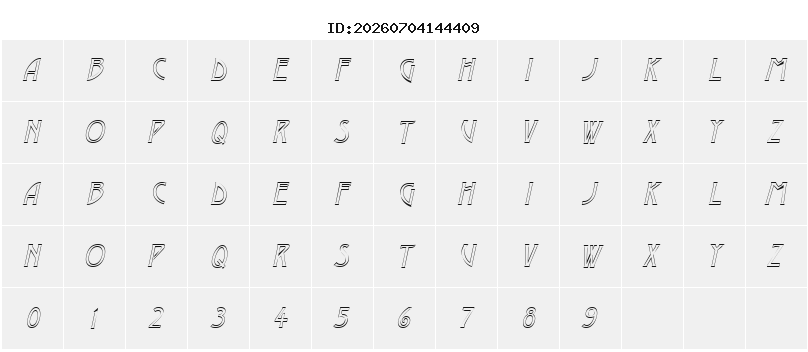
• Font Name: Dustine
• Font Style: Italique
• Full Font Name: Dustine Italique
About Dustine.ttf
Dustine.ttf is a modern, elegant sans-serif font designed for ultimate readability and visual harmony. Perfect for branding, headlines, web design, and print materials.